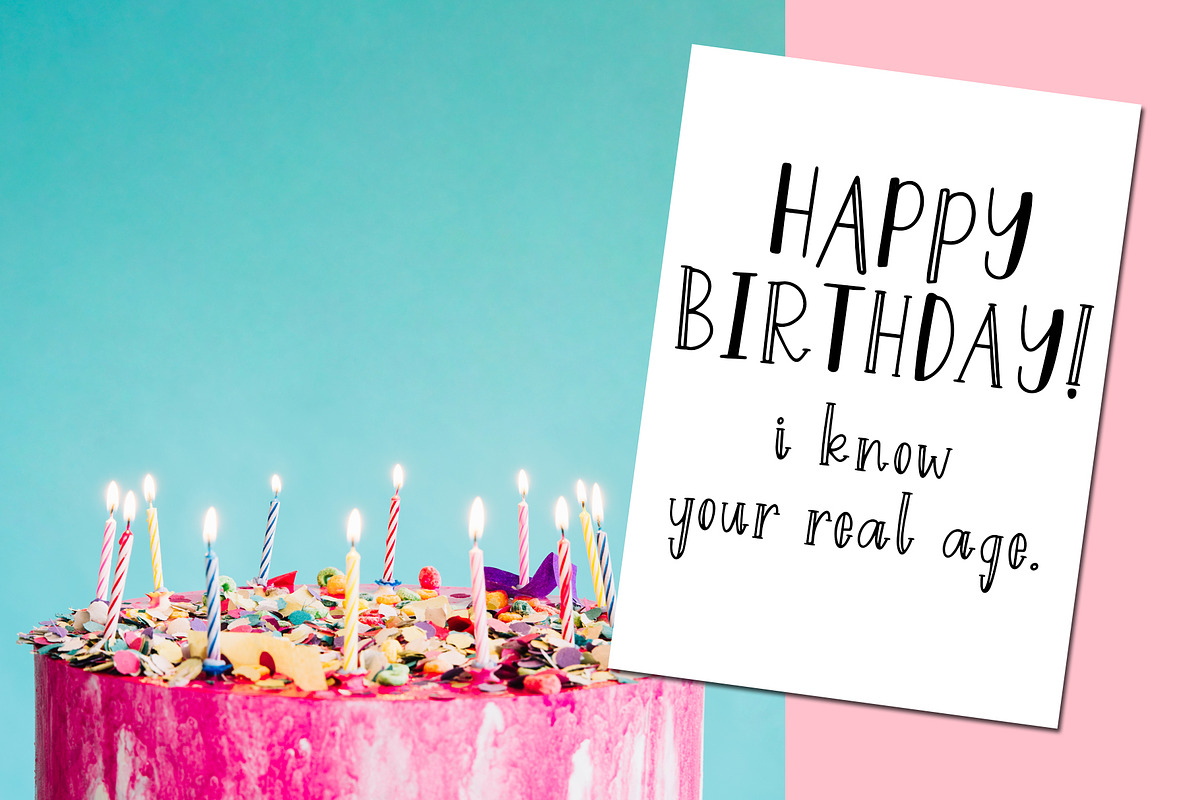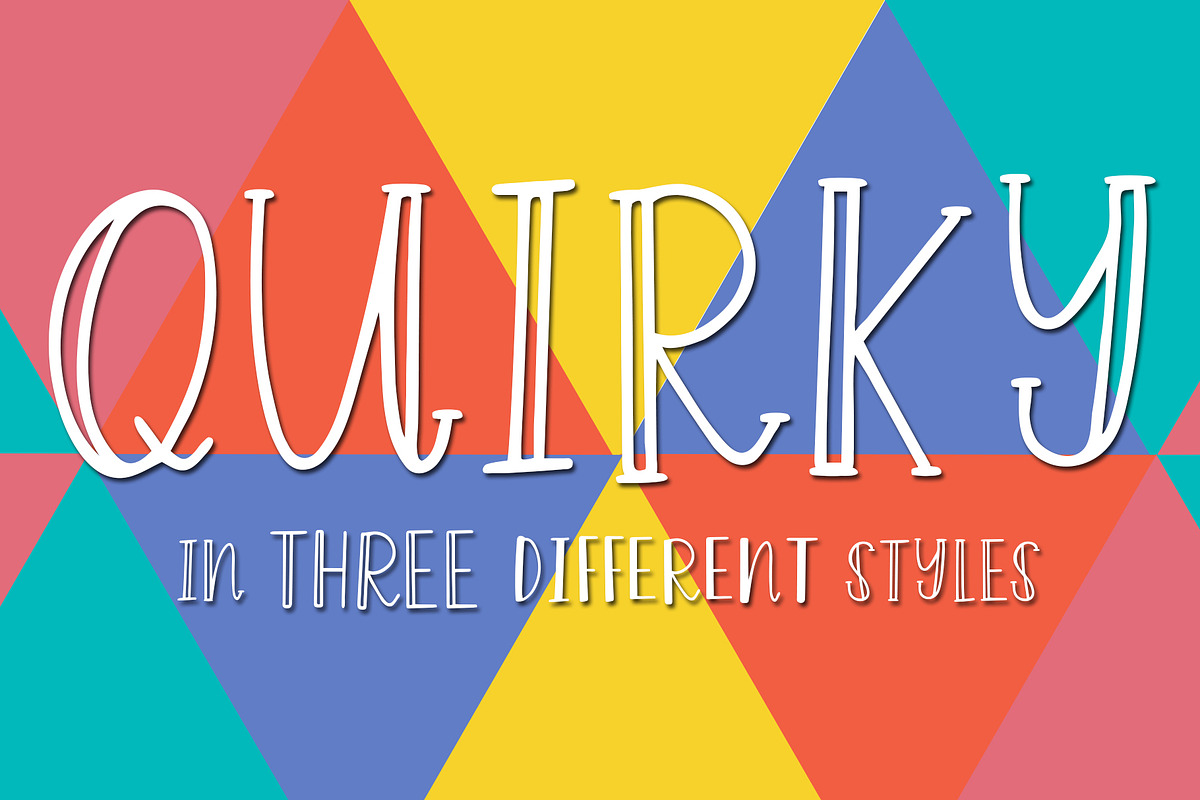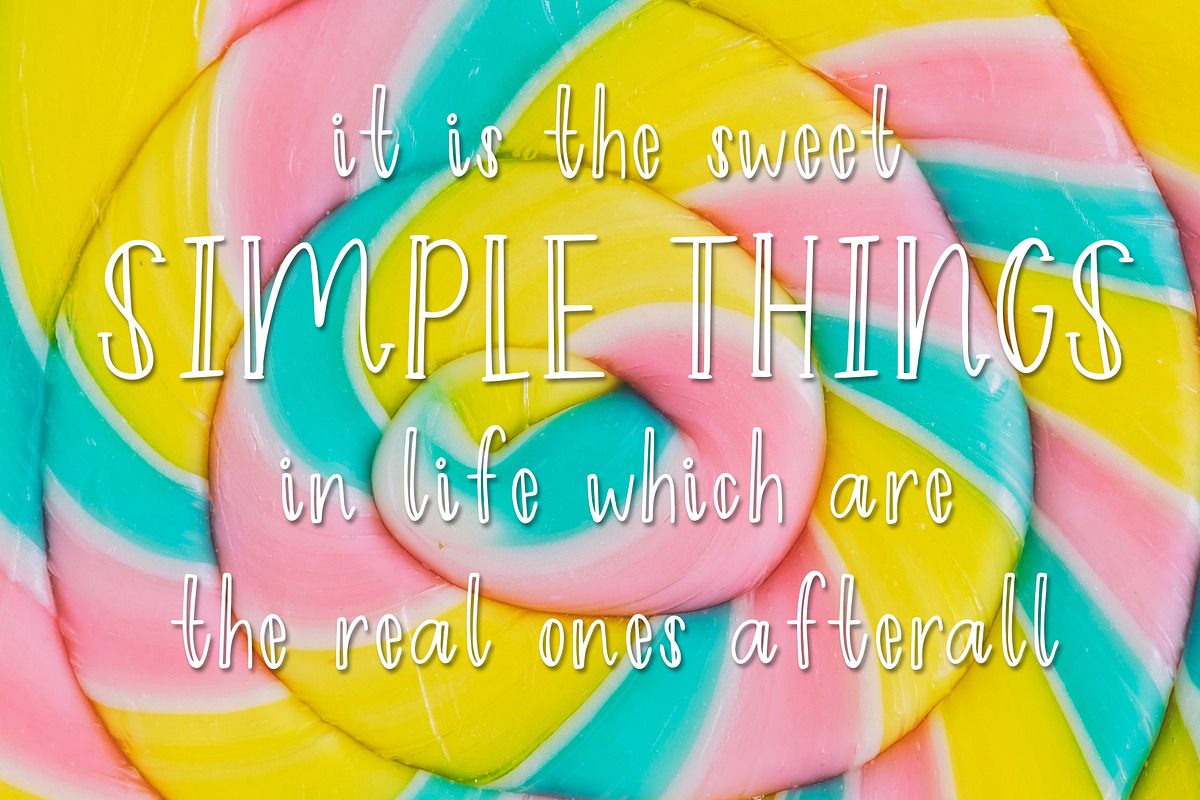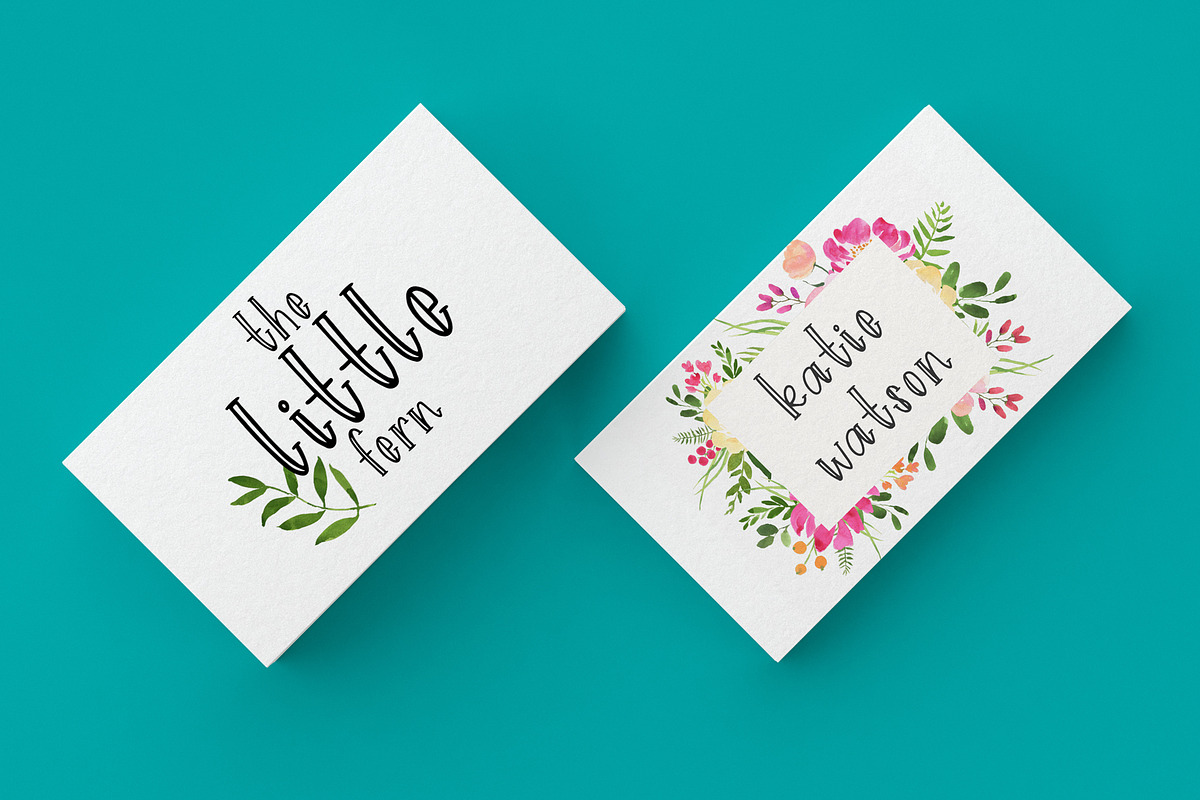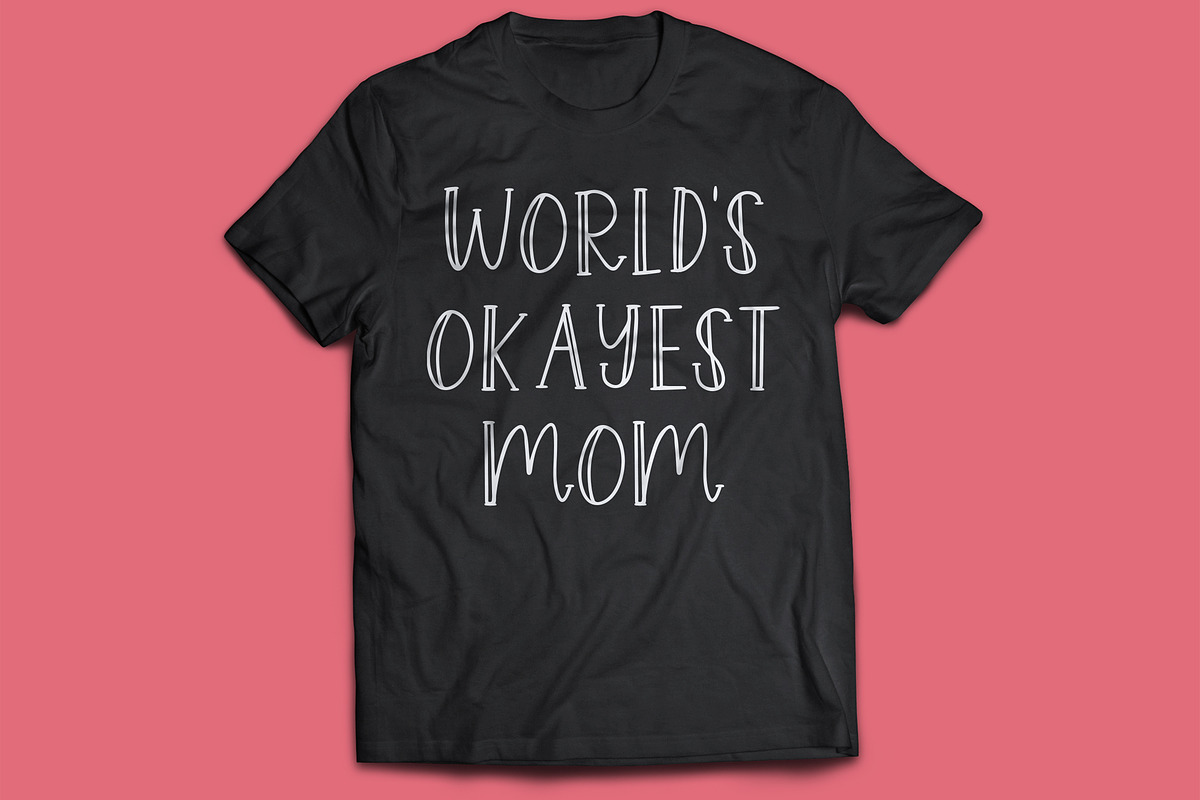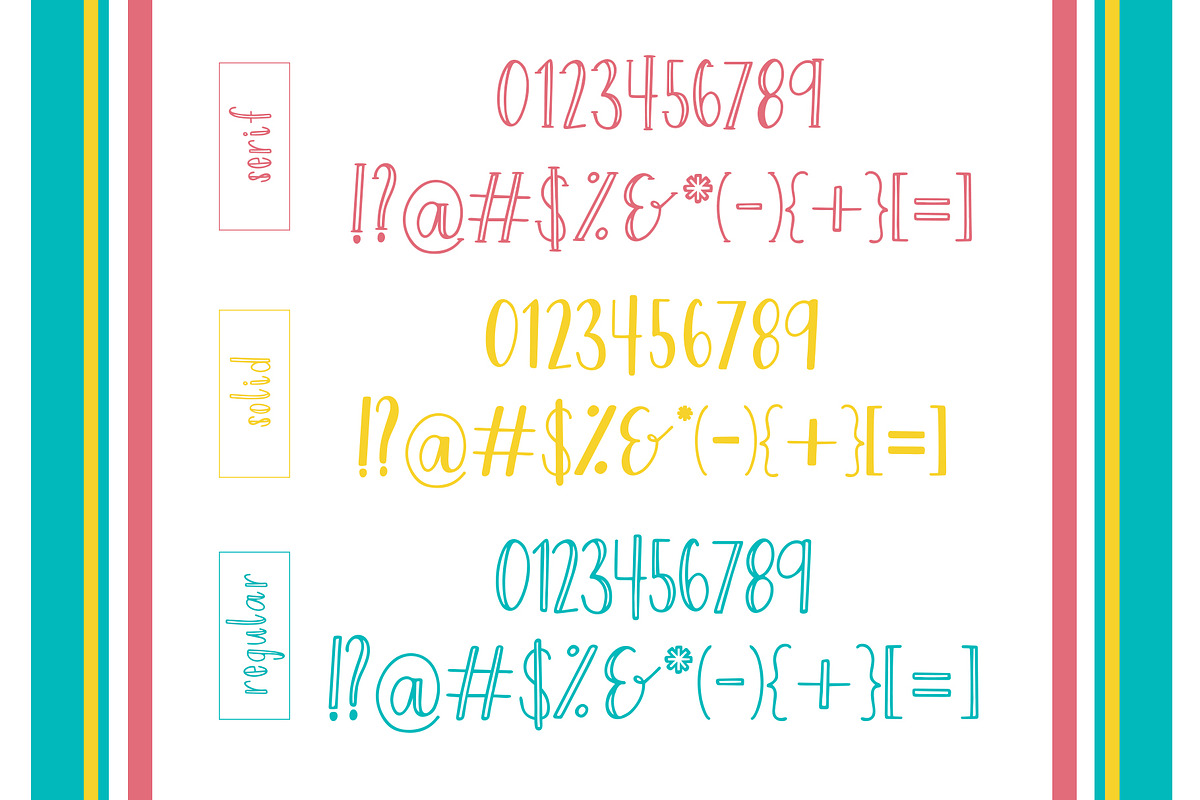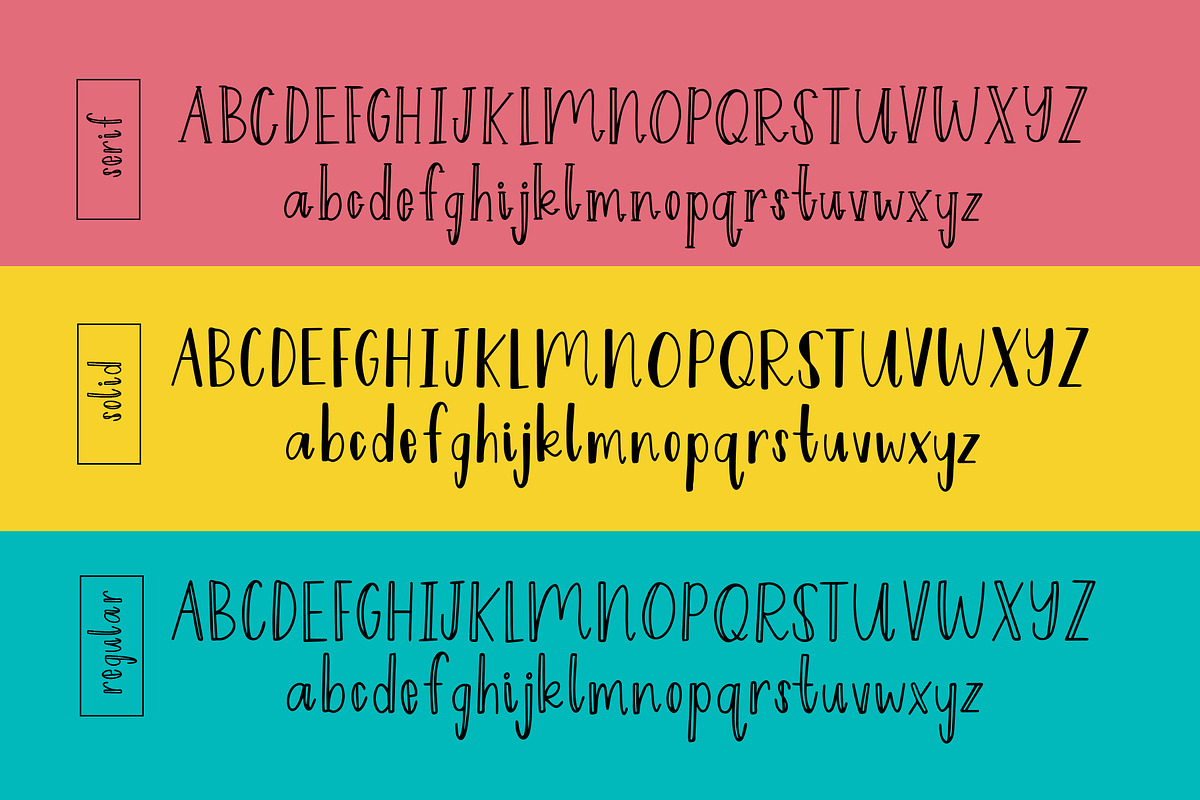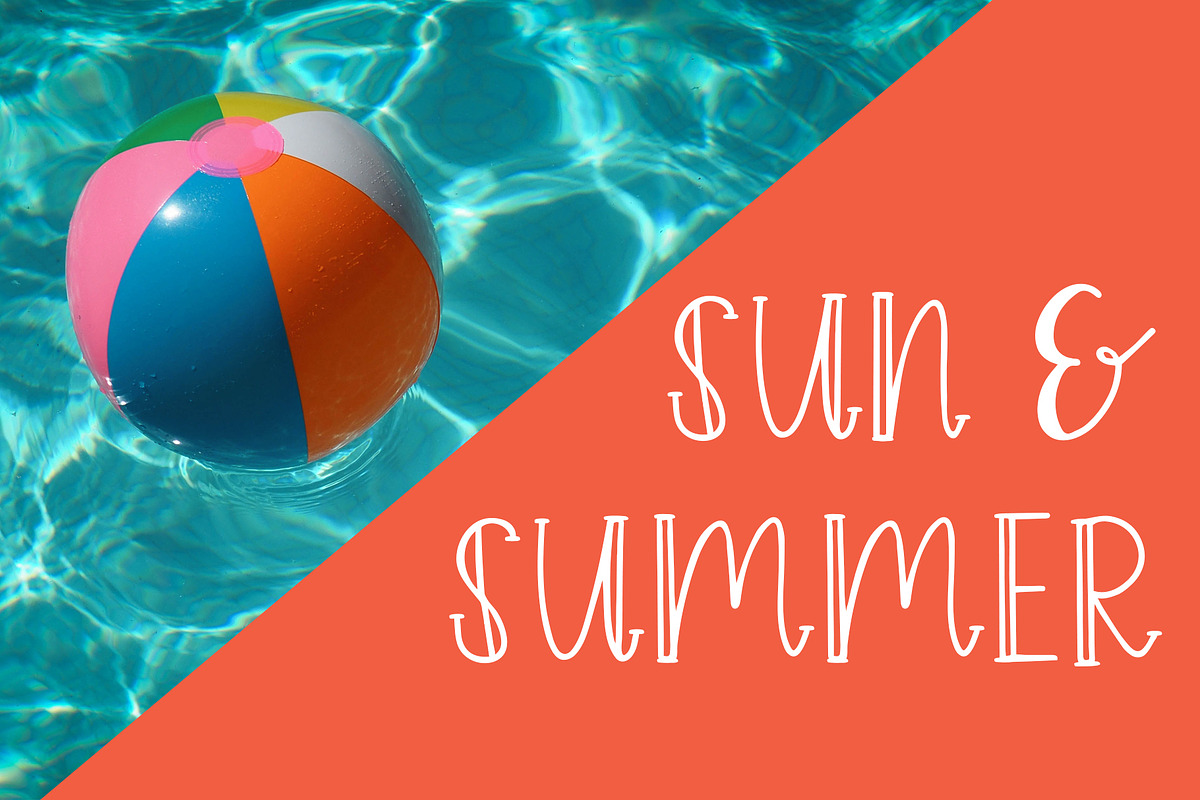
Quirky Font
QUIRKY! This is a fun, unique font that comes in three different styles - regular, solid, and serif!
It can be used with many fun projects such as branding, stationary, packaging, social media, and anything you can dream up!